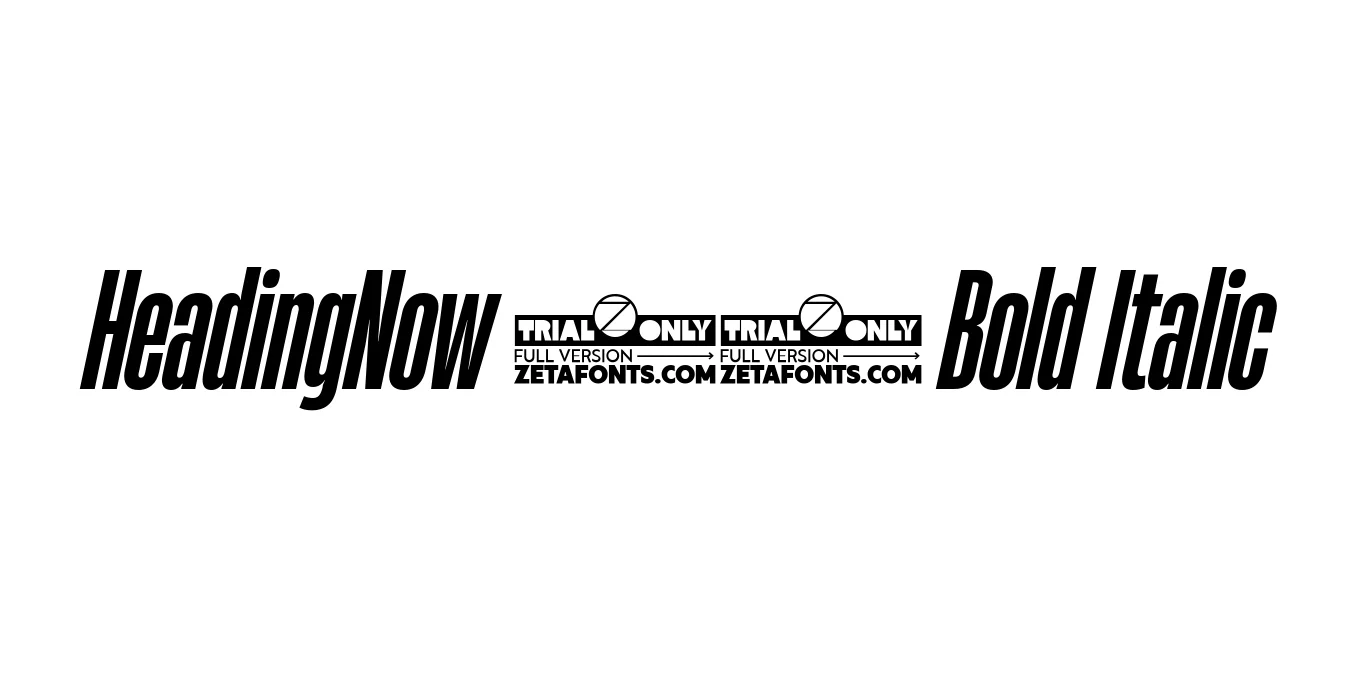
HeadingNow 24 Bold Italic
Designed by Francesco Canovaro
HeadingNow 24 Bold Italic is an integral part of the highly versatile HeadingNow typeface system, designed by Francesco Canovaro for Zetafonts. This font family was developed as a modern evolution of the original Heading font, specifically engineered to provide designers with an exhaustive range of widths and weights for complex layout challenges. The '24' variant represents a specific width and weight combination within its expansive 160-style grid, offering a powerful, slanted aesthetic that conveys movement, urgency, and contemporary style.
As a neo-grotesque sans serif, this typeface emphasizes clean geometric shapes and tight apertures, ensuring maximum readability even in dense typographic environments. HeadingNow 24 Bold Italic is particularly effective for high-impact display use, where its bold strokes and dynamic italics can command attention. It is a favorite among creative professionals for its ability to bridge the gap between classic industrial typography and modern digital design sensibilities.
HeadingNow 24 Bold Italic Best Uses
Perfect for dynamic headlines and subheaders in magazines and digital journals.
Excellent for creating authoritative and energetic brand identities.
High-impact look for posters, billboards, and social media marketing graphics.
Ideally used for hero sections and call-to-action buttons that require emphasis.